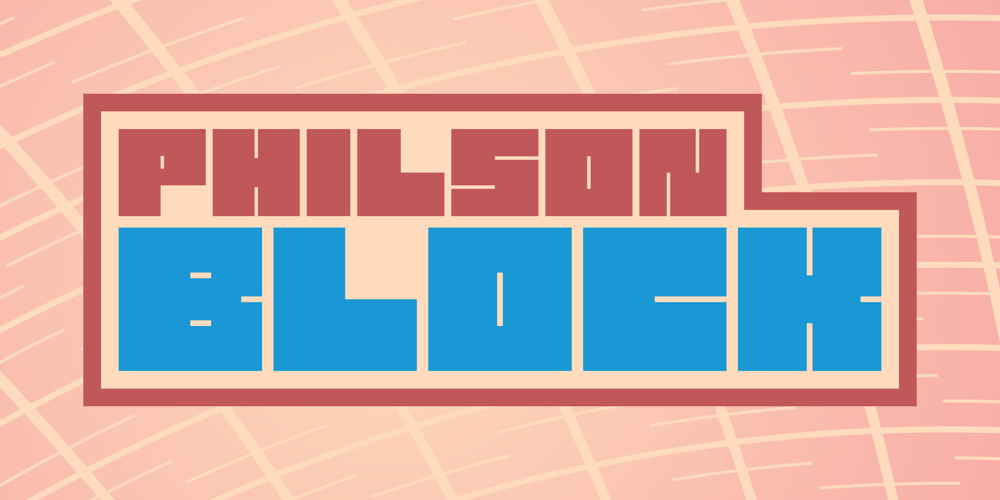
philson block Font Family was designed by chris philson and published by chris philson. philson block contains 2 styles and family package options. Philson Block is a family with upright and oblique versions. The structure of each character is based on a square divided into simple fractions. Each letter has at least one variation, with angled corners, increased widths, or altered shapes. This font is recommended for display lettering, headlines, and blocks of type that mask images.